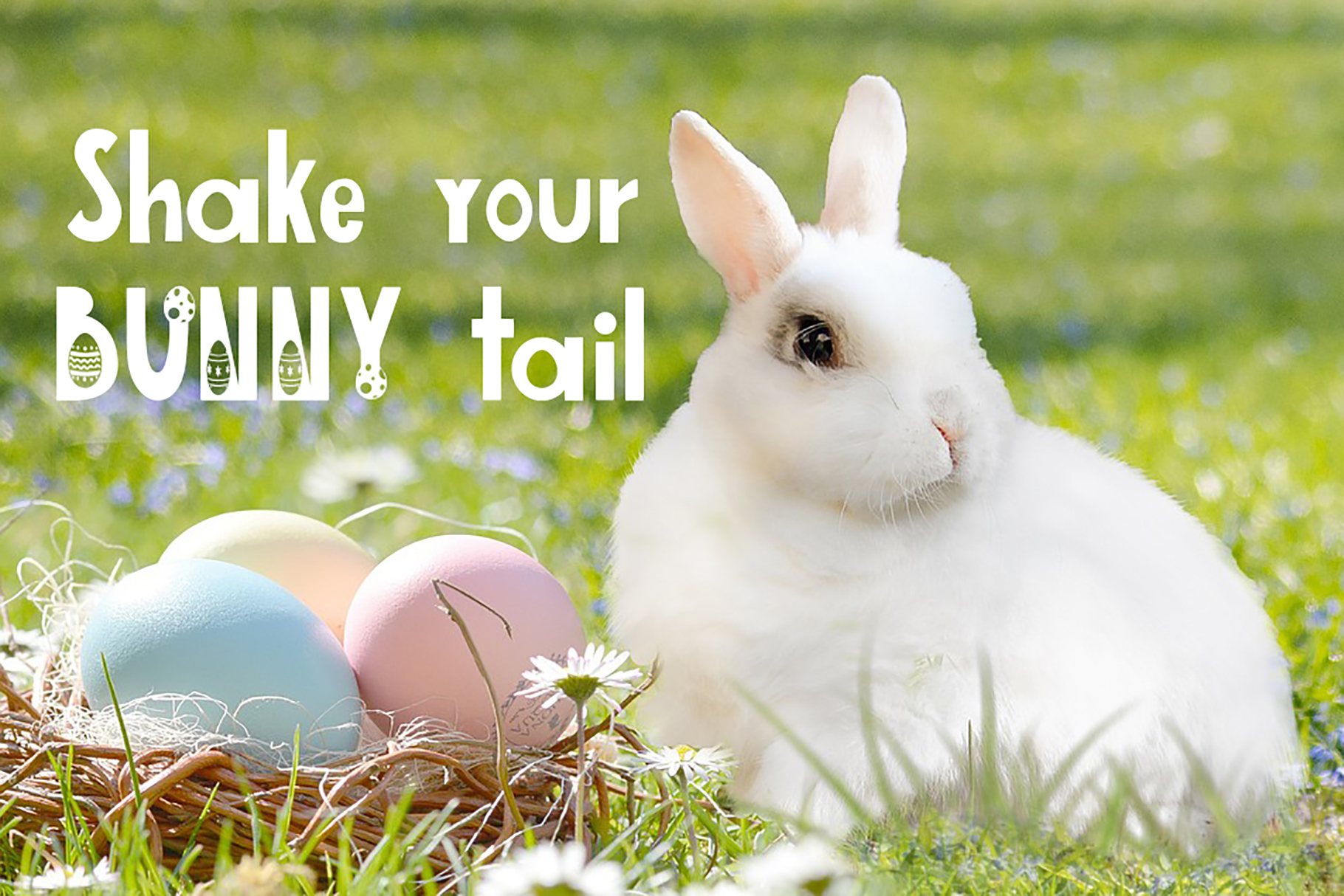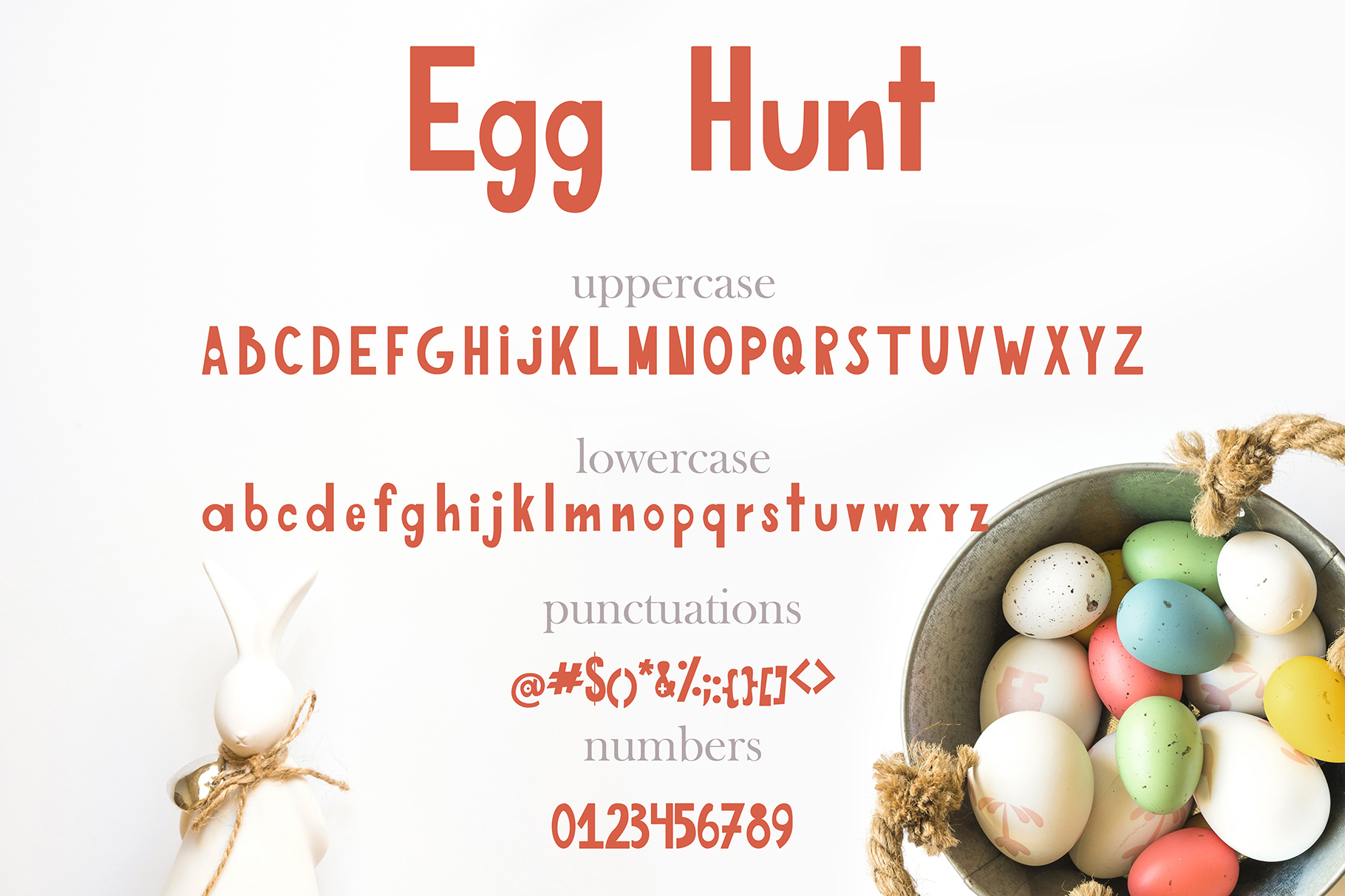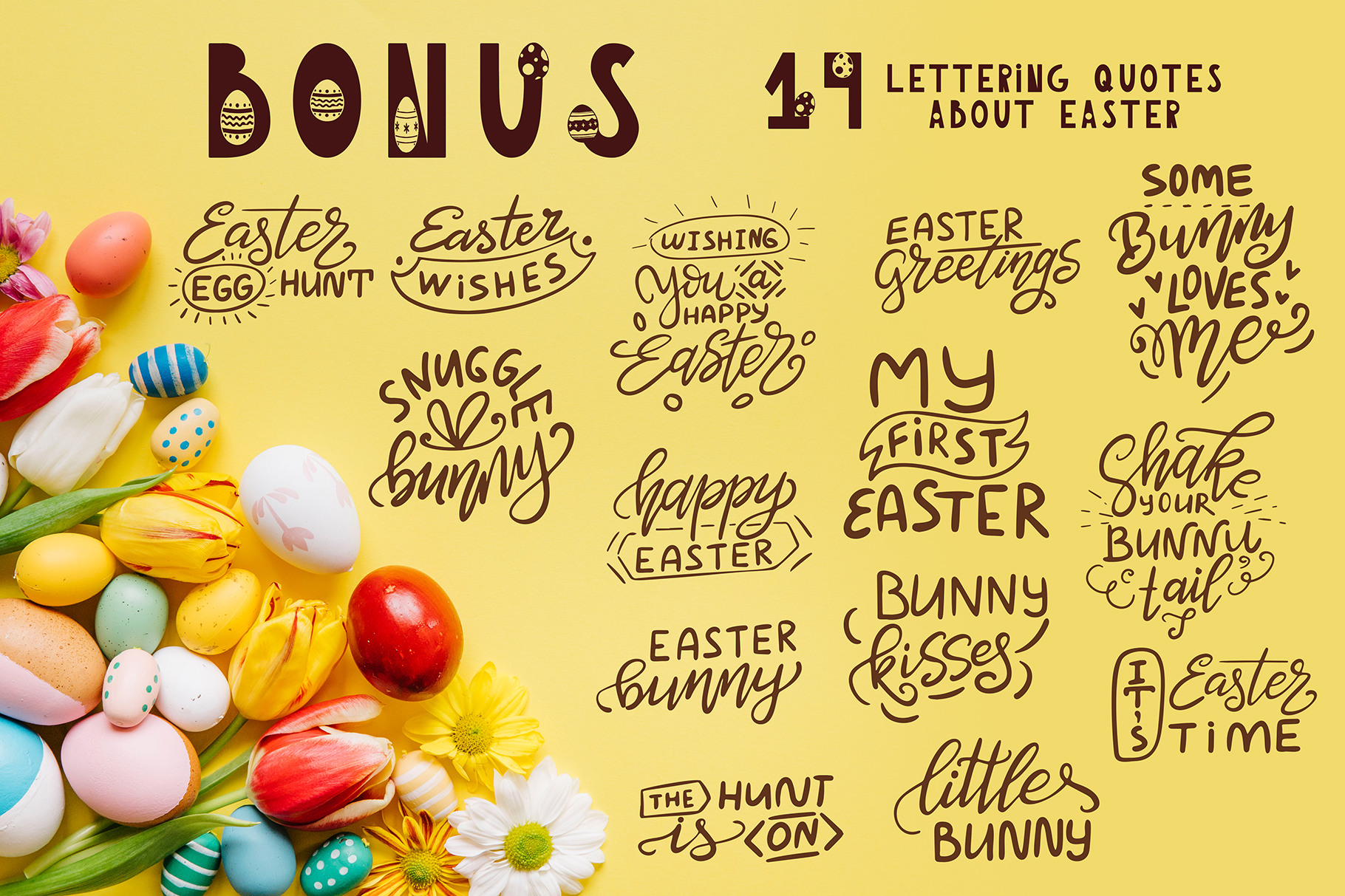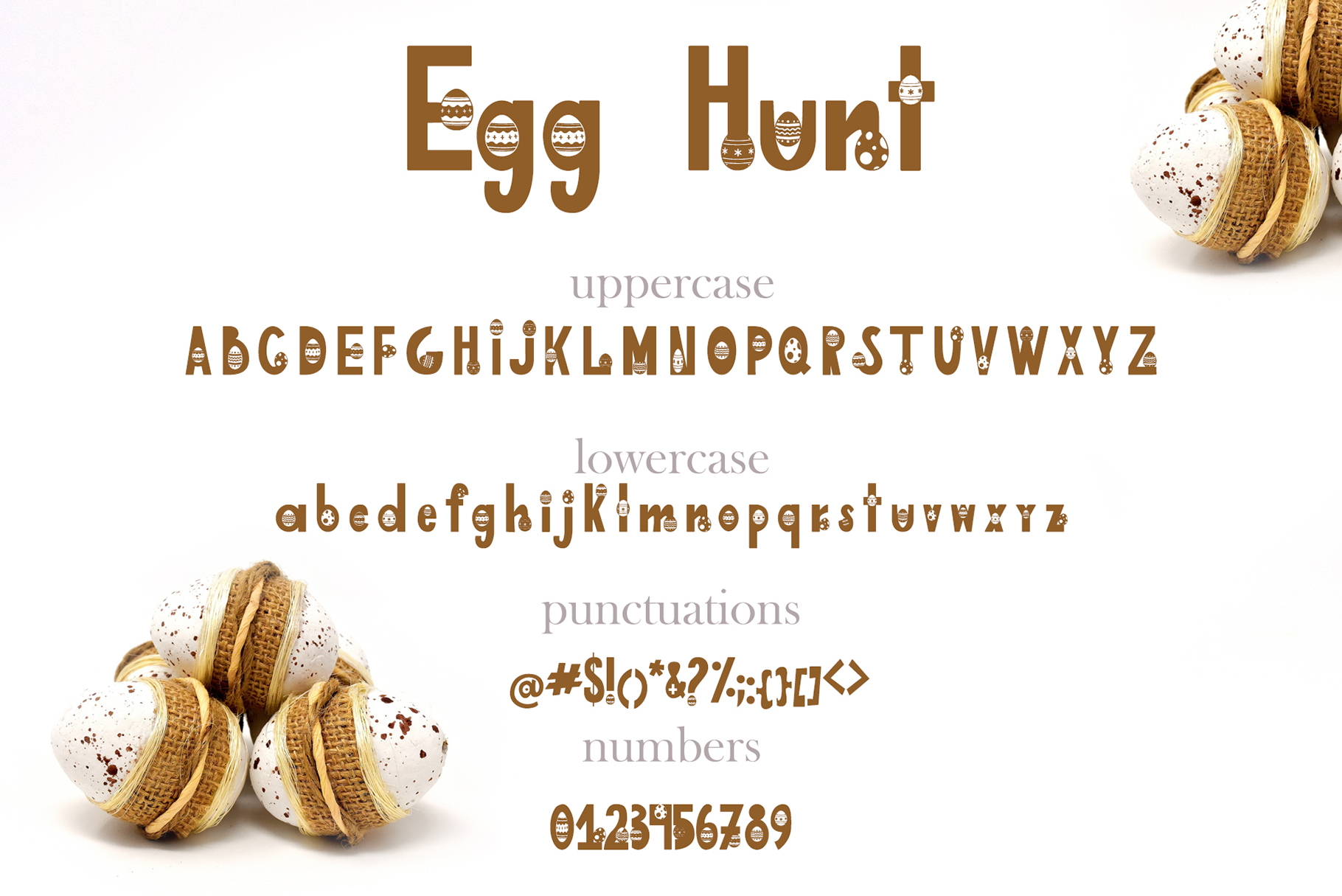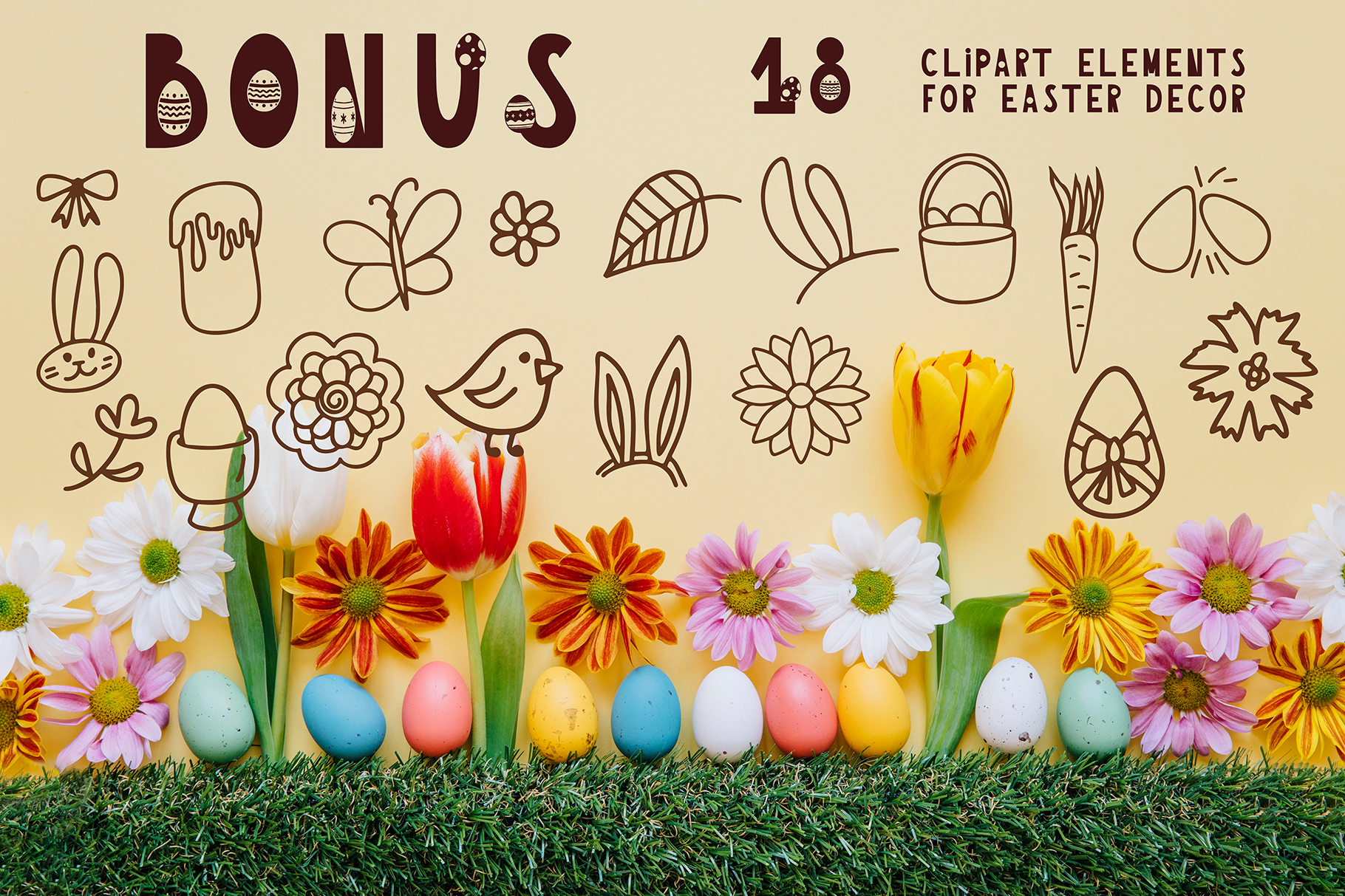
Egg Hunt Font: The Perfect Easter Display Font for Designers and Crafters
Are you looking for a unique and festive font to add a touch of Easter charm to your designs and creative projects? Look no further than the Egg Hunt Font! This charming display font is specifically designed for the Easter season, featuring cute Easter egg decorations that will give your work a fun and playful look.
What is Egg Hunt Font?
Egg Hunt Font is a display font designed to help you create eye-catching Easter-themed designs with ease. This font comes in different styles, allowing you to customize and design your projects to your heart’s content. Whether you’re a designer, crafter, or DIY enthusiast, Egg Hunt Font is the perfect addition to your font collection.
Key Features of Egg Hunt Font
- Charming Easter Theme: The font features cute Easter egg decorations, making it perfect for Easter-themed designs and projects.
- Multiple Styles: The font comes in different styles, allowing you to experiment with various designs and customize your projects.
- Ease of Customization: The font is designed to be easy to use and customize, making it perfect for designers and crafters of all levels.
- Unique and Fun Look: The font’s Easter egg decorations give it a unique and fun look that’s sure to stand out.
Why Choose Egg Hunt Font?
There are many fonts available online, but Egg Hunt Font stands out from the rest due to its unique Easter theme and versatility. Here are some reasons why you should choose Egg Hunt Font for your Easter designs:
- Perfect for Easter Designs: The font’s Easter theme makes it perfect for creating Easter-themed designs, such as Easter egg hunt posters, Easter greeting cards, and more.
- Customizable: The font’s multiple styles and ease of customization make it perfect for designers who want to create unique and personalized designs.
- High-Quality: The font is designed to be high-quality and visually appealing, making it perfect for professional designs.
Easter Design Ideas Using Egg Hunt Font
Egg Hunt Font is perfect for a variety of Easter designs, including:
- Easter Egg Hunt Posters: Create eye-catching posters to promote your Easter egg hunt event.
- Easter Greeting Cards: Design personalized Easter greeting cards for your loved ones.
- Easter Party Invitations: Create festive party invitations to invite friends and family to your Easter celebration.
- Easter Crafts: Use the font to create Easter-themed crafts, such as Easter egg decorations and Easter-themed DIY projects.